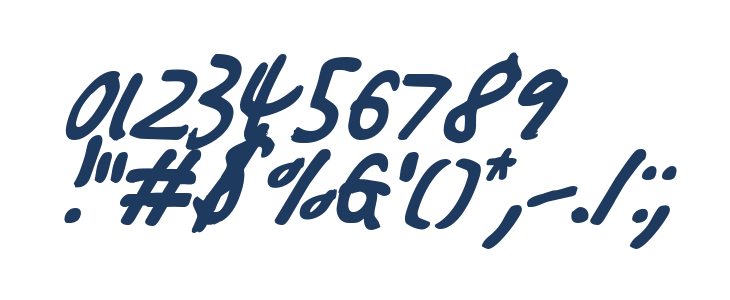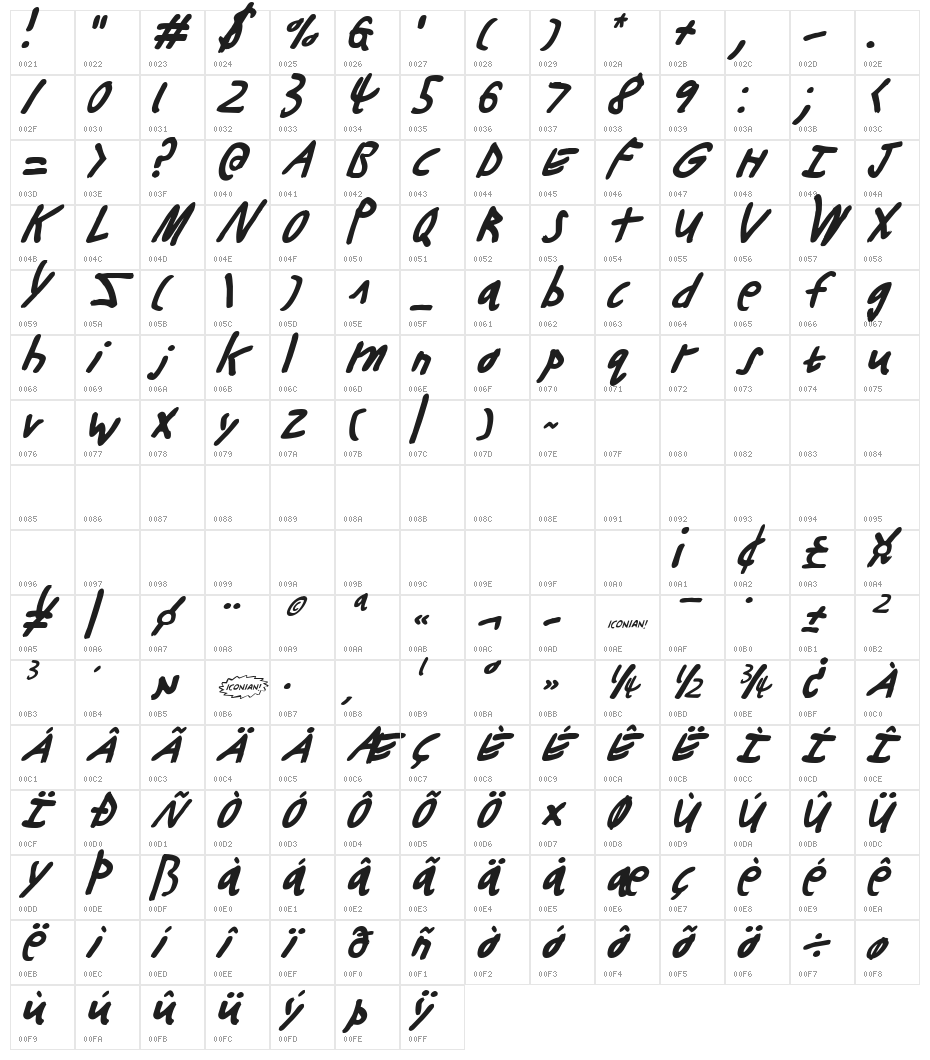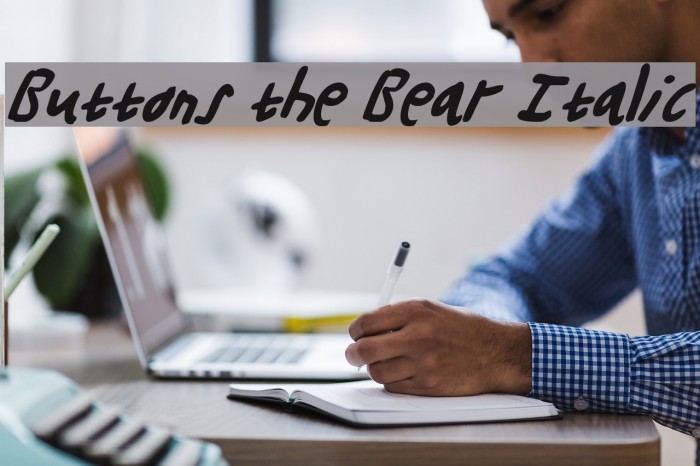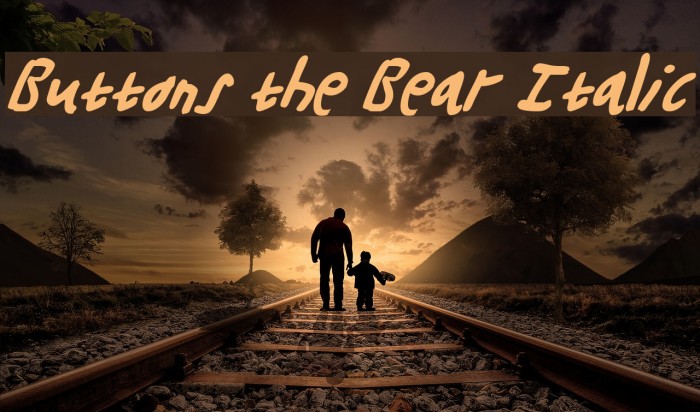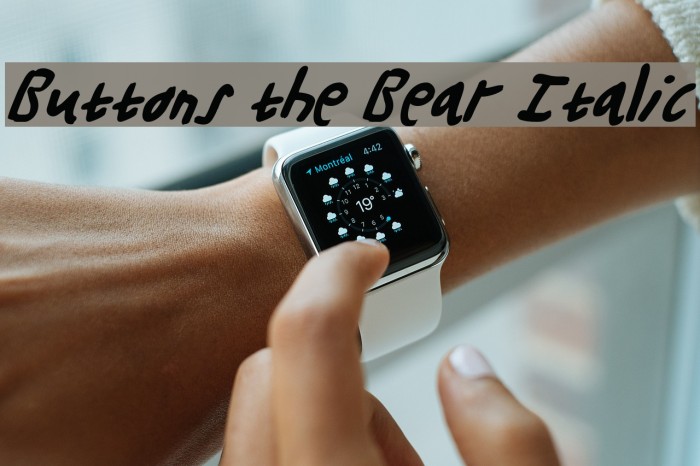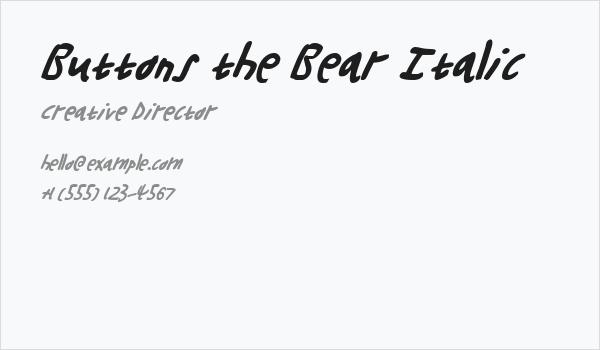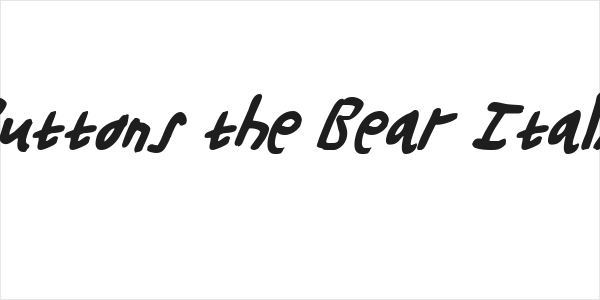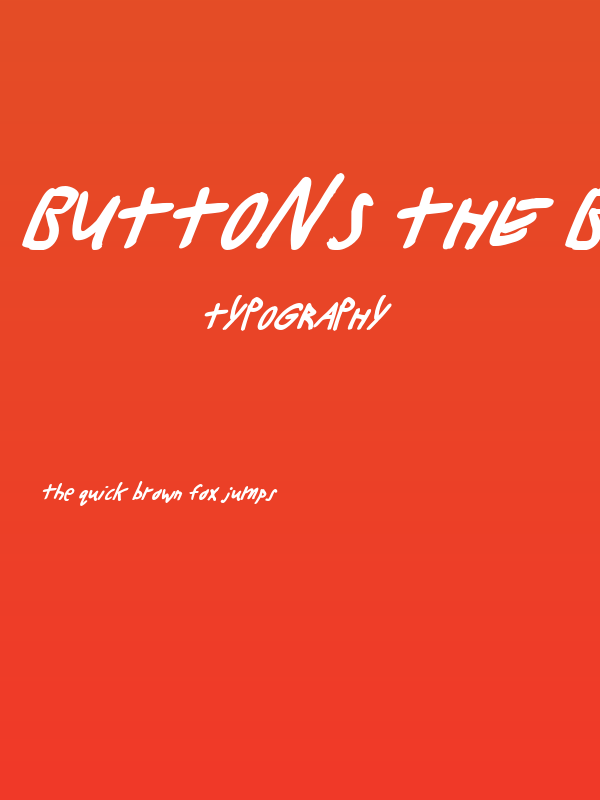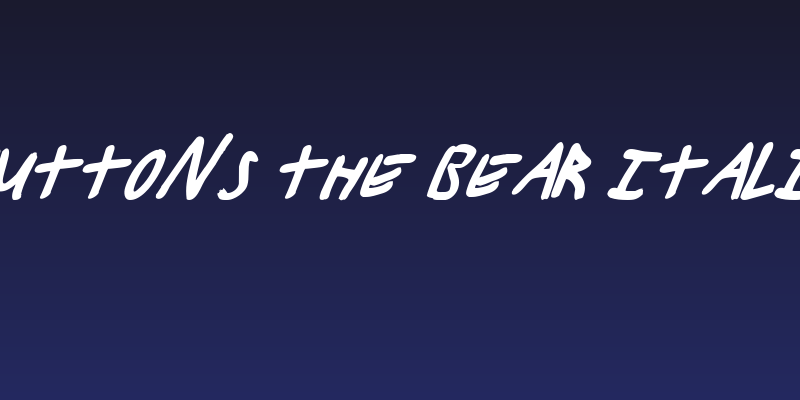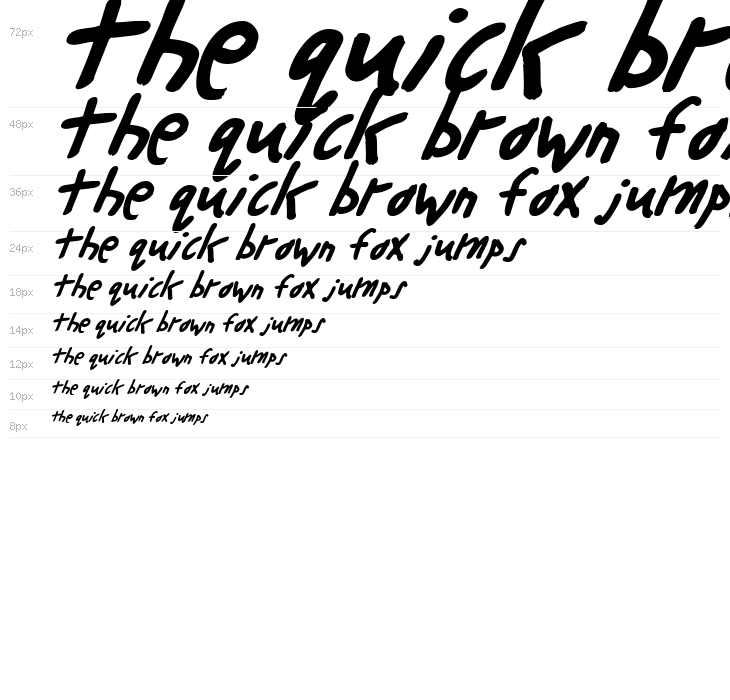
Buttons the Bear Italic Font
Buttons the Bear Italic Description
This font exhibits a playful and dynamic handwritten style, characterized by its slanted, italicized form. The strokes are bold and expressive, with a consistent flow that mimics natural handwriting. Each character is uniquely crafted, giving the font a personal and informal touch. The uppercase and lowercase letters maintain a cohesive look, while the numbers and special characters integrate seamlessly into the overall design. The font's energetic appearance makes it suitable for projects that require a lively and approachable aesthetic.
| Overall Style | Playful, Dynamic |
| Use Case | Logos, Headlines, Informal Text |
| Proposed Projects | Ideal for greeting cards, children's book covers, playful branding, and social media graphics. |